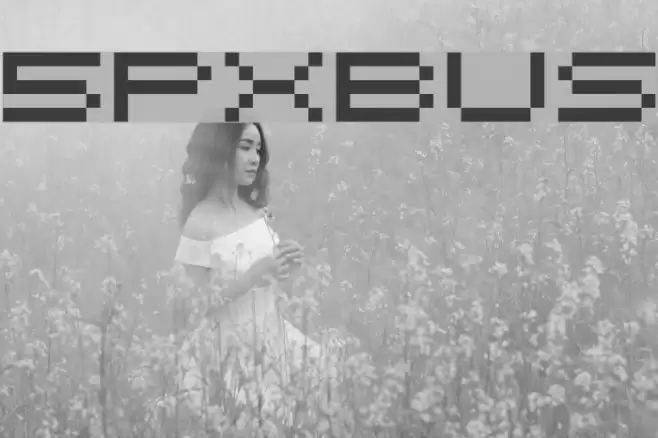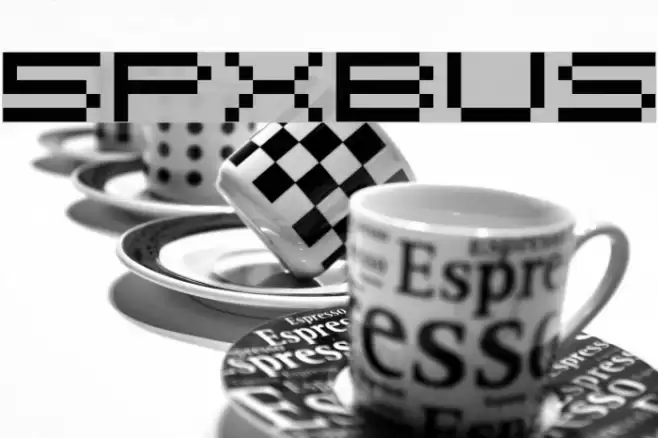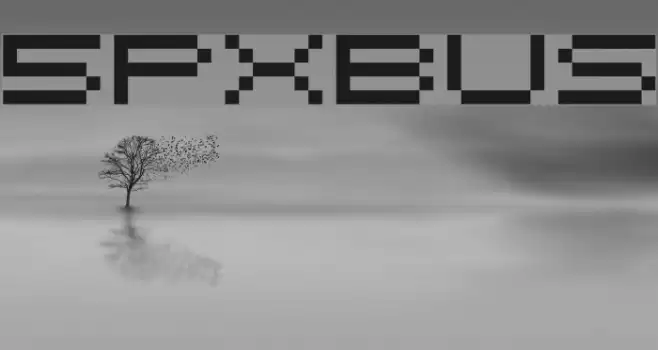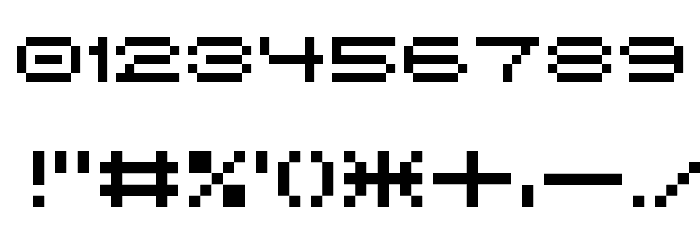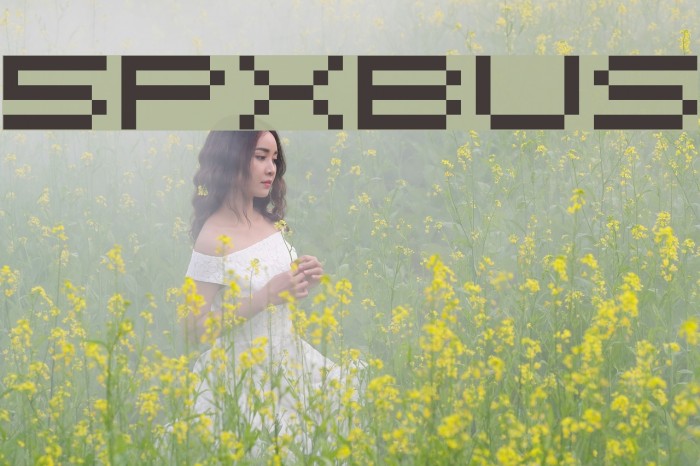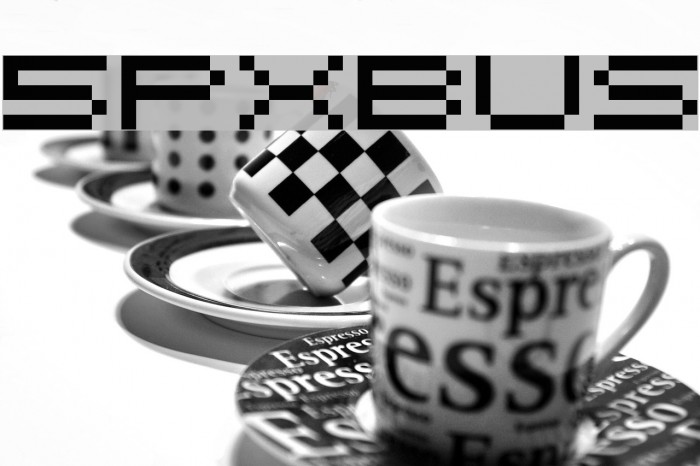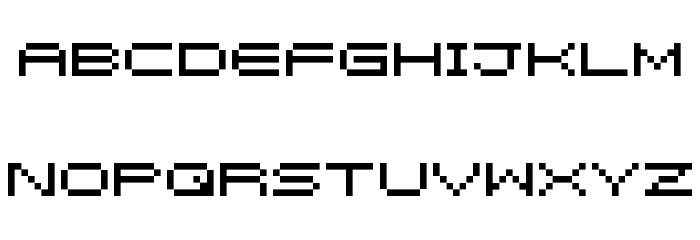
5pxbus Font
5pxbus Description
This font features a pixelated, blocky design reminiscent of early digital displays and retro video games. Each character is constructed with a uniform grid-like pattern, giving it a distinctly digital and geometric appearance. The uppercase and lowercase letters maintain a consistent height, while the numbers and special characters follow the same pixelated style. The overall look is clean and minimalistic, with sharp edges and a uniform stroke width that enhances its digital aesthetic. This font is ideal for projects that aim to evoke a sense of nostalgia or a retro-futuristic vibe.
A pixelated, retro-style font with a digital, geometric design from Uncategorized fonts.
- Proposed Projects: Ideal for video game graphics, retro-themed designs, digital art projects, and any creative work that requires a nostalgic or tech-inspired aesthetic.
- Overall Style: Retro, Digital
- Use Case: Logos, Headlines, Digital Art